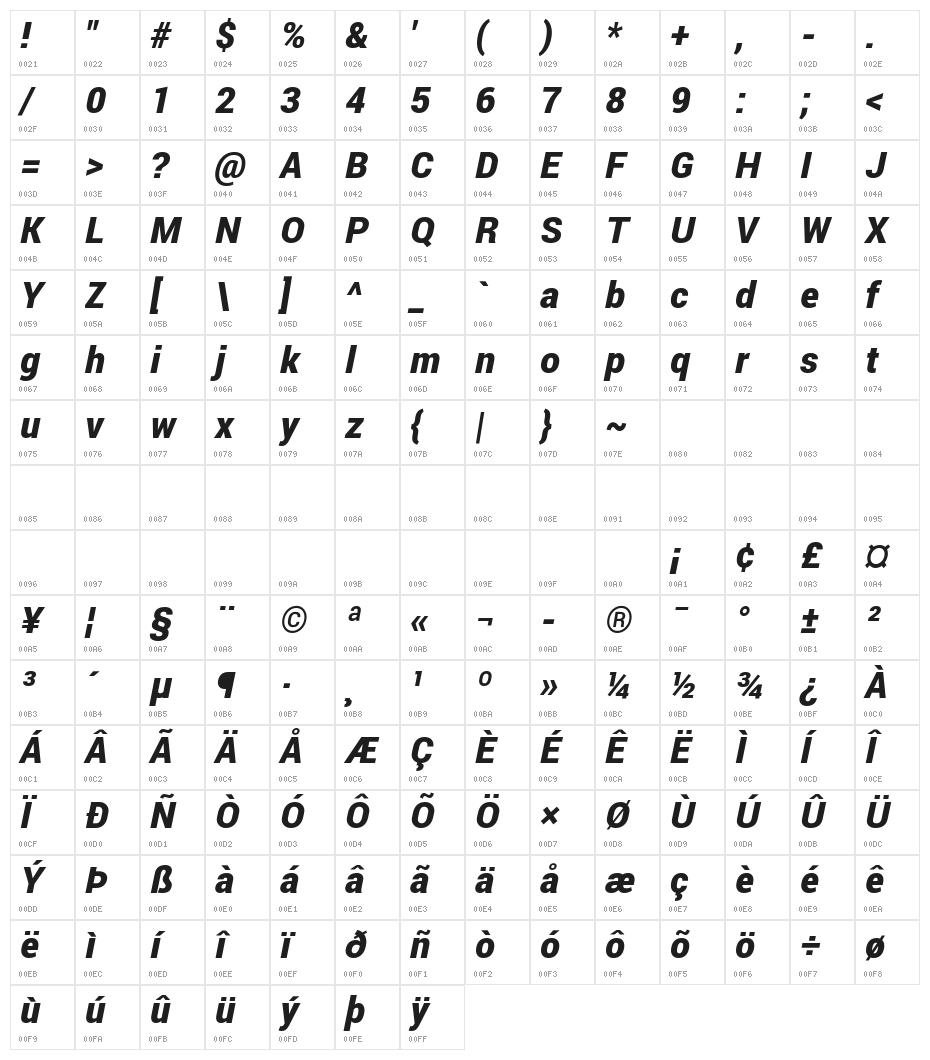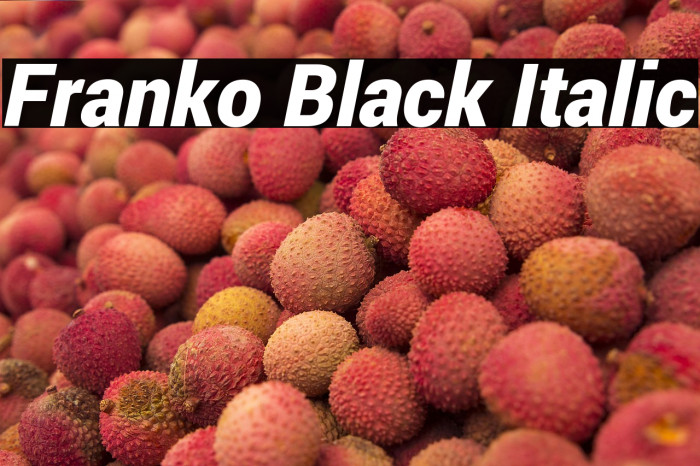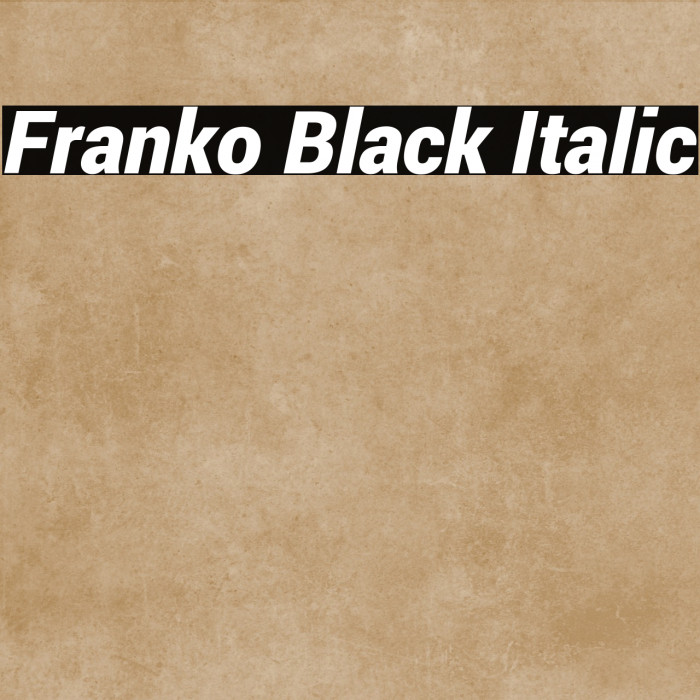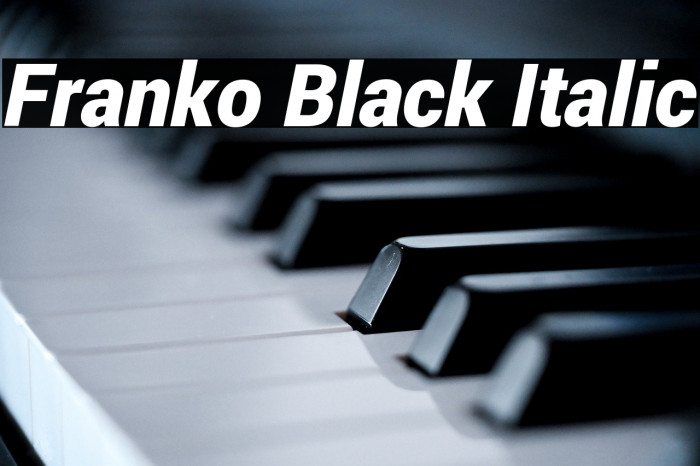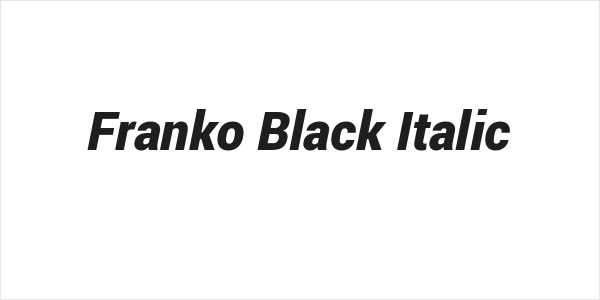
Franko Black Italic Font
Franko Black Italic Description
This font exhibits a bold and dynamic style with a strong italic slant, giving it a sense of movement and urgency. The characters are robust and impactful, making it ideal for attention-grabbing headlines and statements. The strokes are thick and consistent, providing a uniform appearance across all characters. The uppercase and lowercase letters maintain a cohesive design, while the numerals and special characters are crafted to match the overall bold aesthetic. The font's modern and assertive look makes it suitable for a variety of applications where a strong visual presence is required.
| Proposed Projects | Ideal for headlines, posters, branding, and advertising where a strong, impactful presence is needed. |